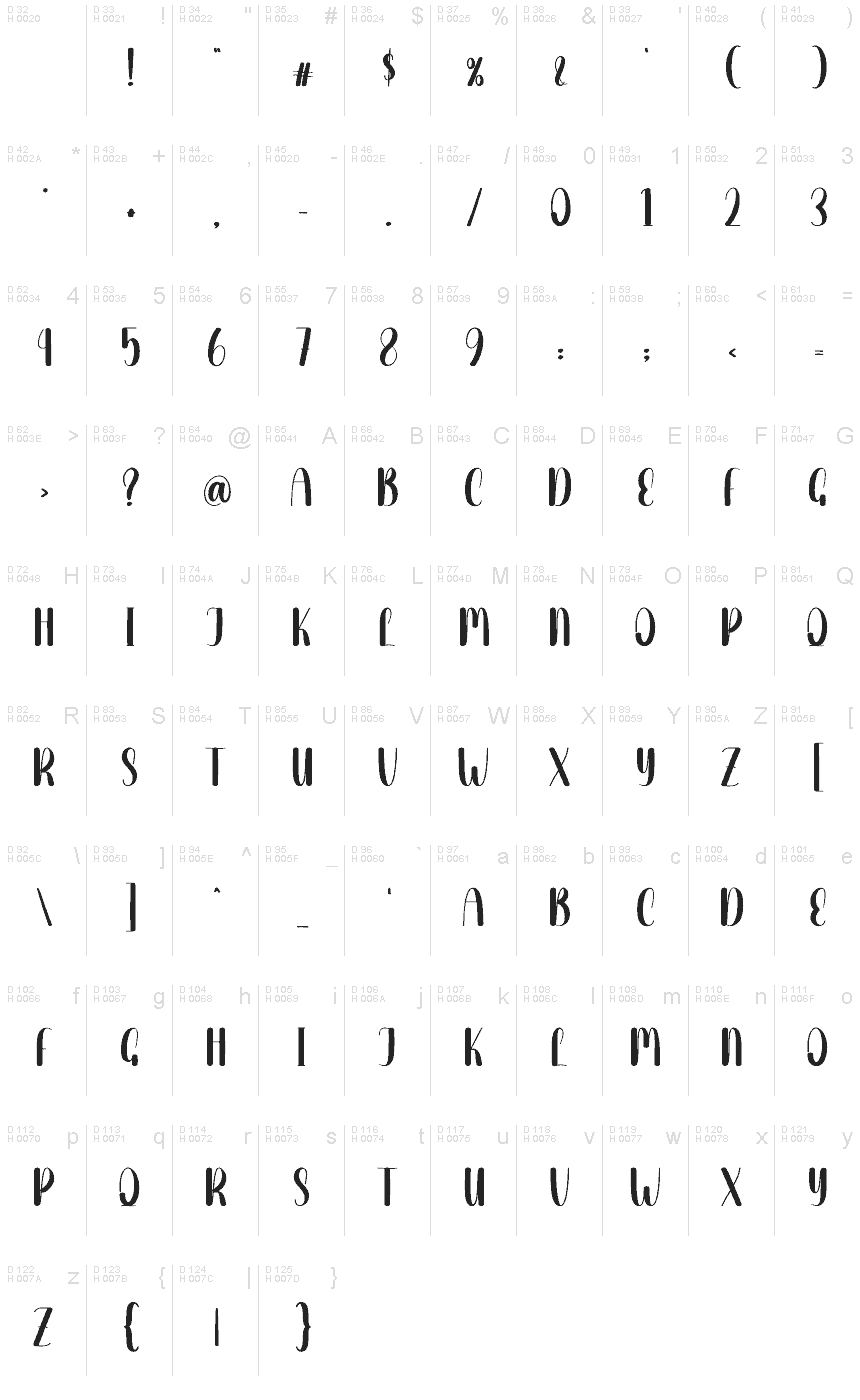
Black Easter
Black Easter font is a condensed handwritten font designed by Andi Moz, and it's an elegant choice with vintage-inspired art deco influence. Its ornate and theatrical style captures attention immediately given the combination of thick narrow strokes together with decorative edges and subtle curly lines.
Although it’s certainly legible enough for both bodies of text or titles/headings, this font has stunning effect particularly in display purposes. Use it in interior design magazines, movie posters, sign boards, titles for comic books, posters for haunted house events or animation movies covers. Black Easter can also enhance packaging designs like canned goods or food labels aside from restaurant/bakery branding and menus.